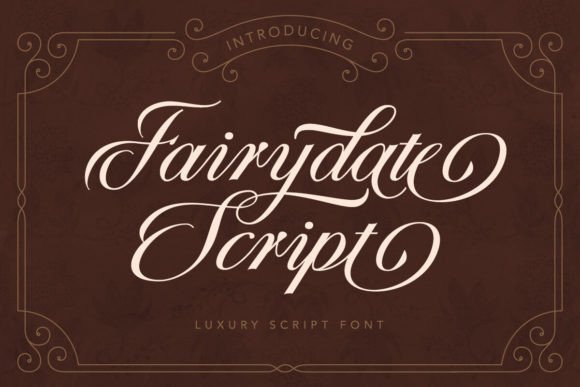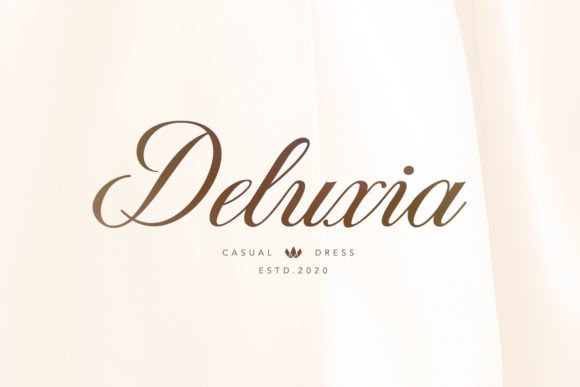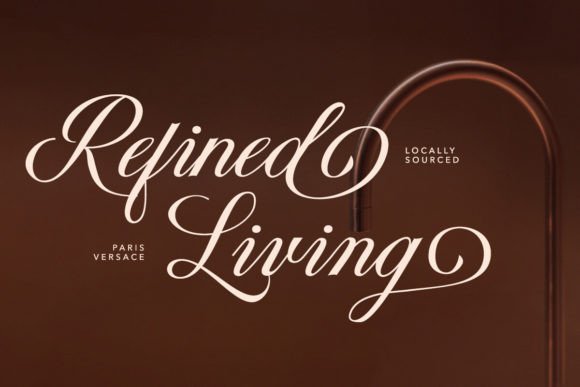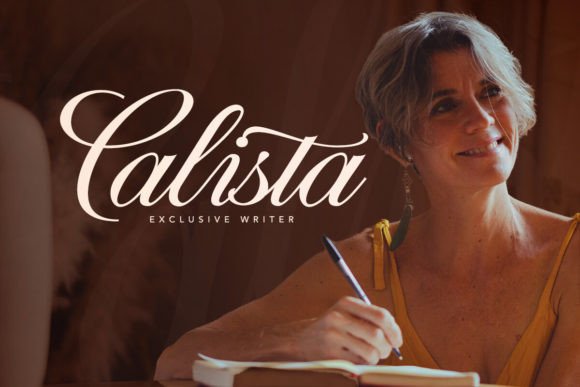
Fairydate Font: Elegant Script for Wedding Invitations & Logo Design
About the Fairydate Font
Introducing the Fairydate Font, a beautifully crafted typeface designed to elevate your creative projects. Fairydate is a luxury script font that have many stylish alternates! With alternate characters, you can make your project more elegant and modern. You can use this font for many purposes, such as invitation wedding, quote, and branding. This font also support multi language!
Fairydate excels in applications requiring a touch of elegance and sophistication, such as wedding invitations, logos, and short, impactful headlines. Its stylish alternates offer versatility for creating unique and memorable designs. However, due to its script nature, it’s less suitable for body text or long paragraphs, where readability becomes paramount. Avoid using it in UI contexts or situations demanding high legibility at small sizes.
Pair Fairydate with a clean sans-serif like Lato for a modern contrast, or a classic serif such as Garamond for a more traditional feel. For a playful yet refined look, consider pairing it with a geometric sans-serif such as Montserrat. The overall personality of Fairydate is elegant and modern, leaning towards a luxurious and slightly whimsical aesthetic.
This makes it ideal for brands aiming for a sophisticated yet approachable image, particularly those in the fashion, beauty, or luxury goods sectors. The font’s versatility allows for both classic and contemporary applications, depending on the chosen pairings and design approach.
Fairydate Font Usage Examples
Fairydate Font Example